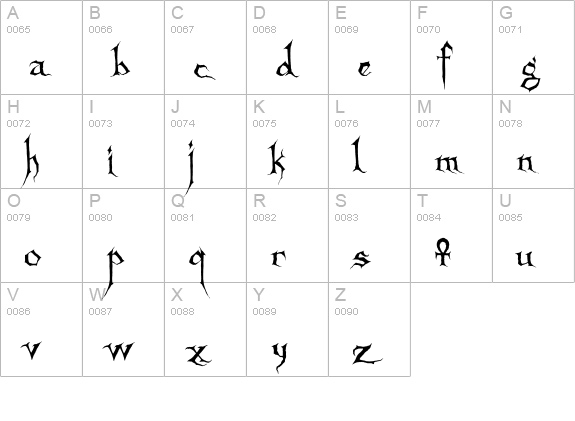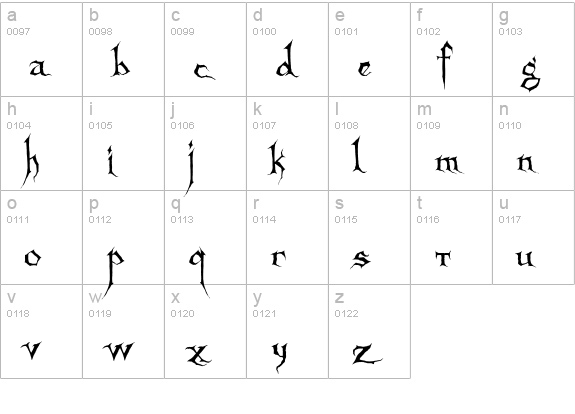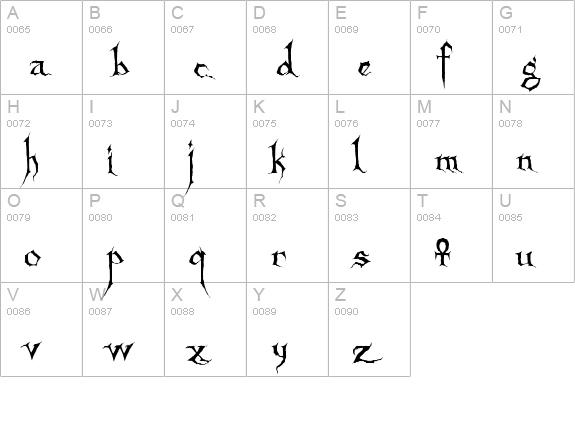
Sanctuary Font Details
Introducing Sanctuary, a breathtakingly beautiful font that embodies elegance and sophistication. With its delicate curves and graceful strokes, this font is perfect for adding a touch of refinement to any design project. Sanctuary is not only visually stunning, but it also offers a sense of tranquility and serenity. Its timeless appeal guarantees that it will remain a classic choice for years to come. Whether you're creating wedding invitations, branding materials, or editorial designs, Sanctuary will effortlessly elevate your work to new heights. What sets Sanctuary apart is not just its exquisite design, but also the fact that it is available for free. That's right, you can download this remarkable font at FontsMarket.com without spending a dime. We believe that creativity should be accessible to all, and by offering Sanctuary for free, we aim to empower designers, entrepreneurs, and artists to bring their visions to life without any limitations. With its extensive character set and versatile ligatures, Sanctuary provides endless possibilities for customization. Whether you prefer a classic and refined look or a more modern and edgy aesthetic, this font can adapt to suit your needs effortlessly. So don't miss out on this incredible opportunity to enhance your designs with the captivating beauty of Sanctuary. Head over to FontsMarket.com and download this timeless font for free today. Unleash your creativity and let Sanctuary be the sanctuary of inspiration for your next project.